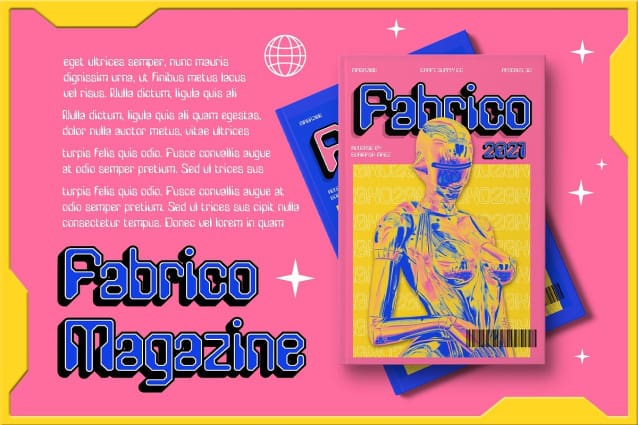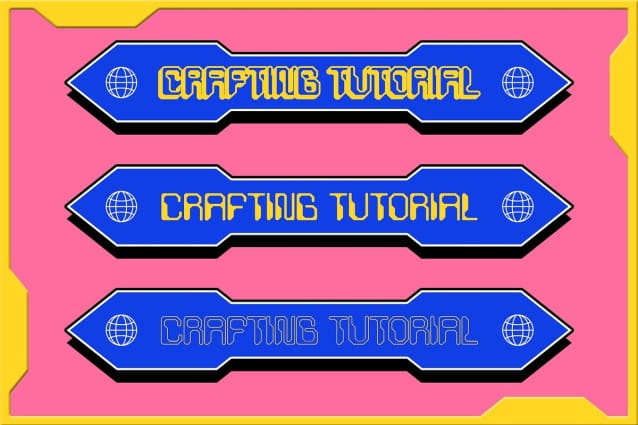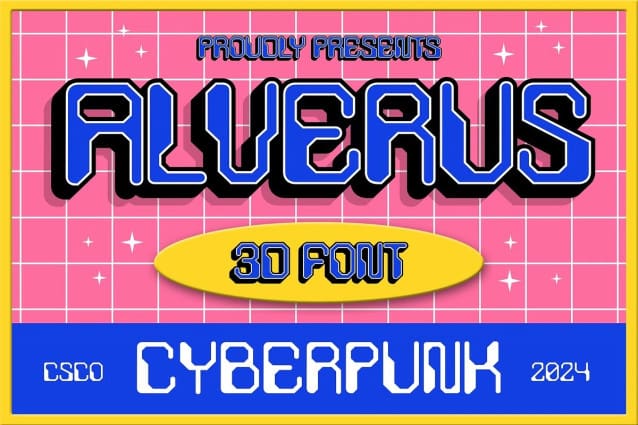
Alverus 3D Font
Alverus 3D Font is a 3D display font with a futuristic and funky design, perfect for capturing attention and adding a creative flair to your projects. Its bold and dynamic style makes it ideal for a wide range of applications.
With its versatile design, Alverus 3D Font is suitable for a variety of uses, including video game designs, posters, and branding. Its futuristic theme adds a cutting-edge look, while the 3D effect creates depth and interest.
Alverus 3D Font prioritizes visual impact, ensuring that your designs stand out from the crowd. Whether used in print or digital media, this font adds a vibrant and energetic element that captivates viewers.
Whether you’re working on a futuristic video game design, a striking poster, or unique branding materials, Alverus 3D Font is the perfect choice for projects that require a blend of futurism and funky style. Its bold design ensures that your work will always look innovative and attention-grabbing.